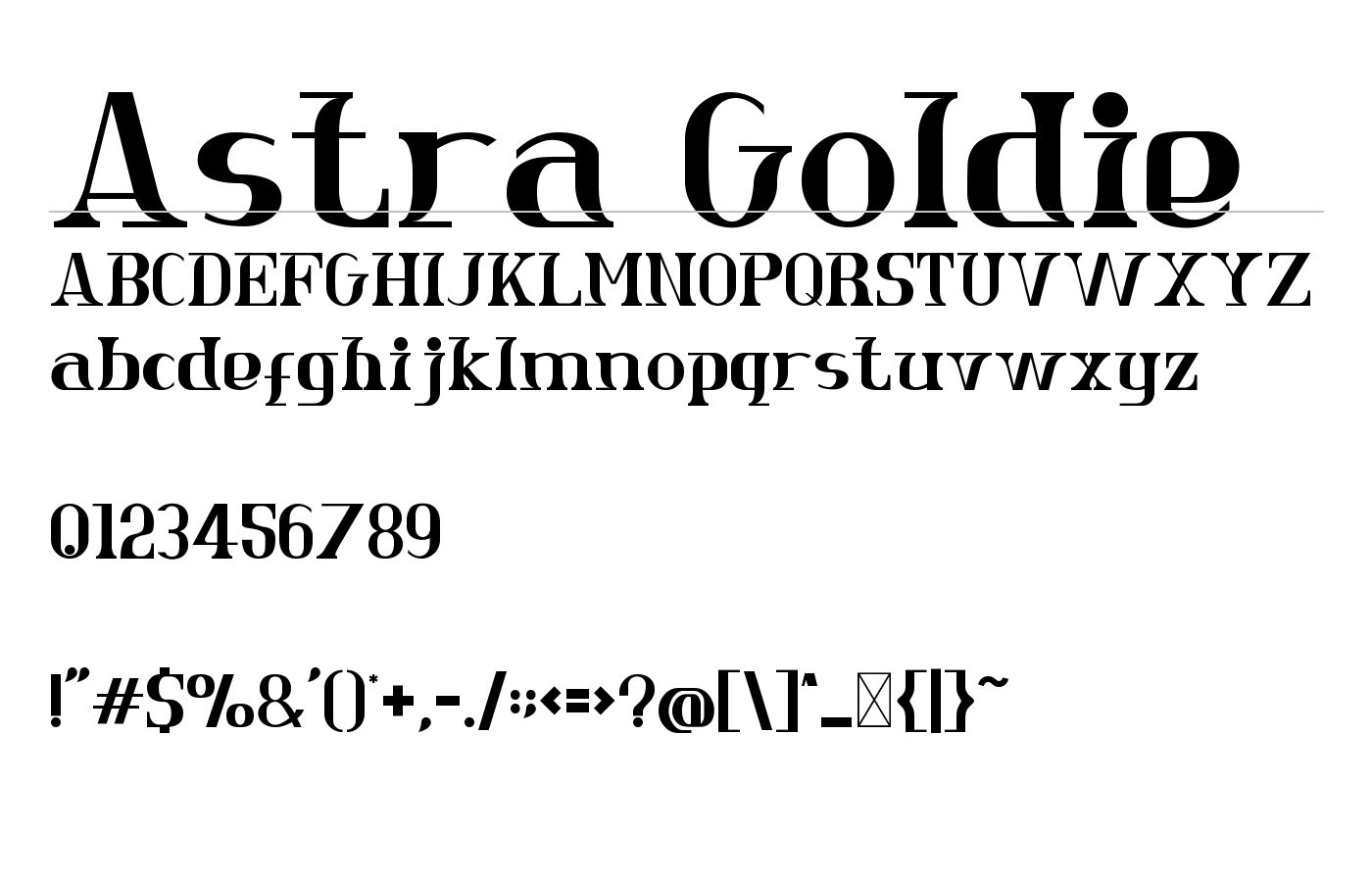
Astra Goldie is a distinctive serif font that combines high contrast strokes with elegant, angular serifs to create a sophisticated yet modern look. Featuring unique letterforms with sharp edges and a mix of traditional and contemporary details, it works beautifully for luxury branding, editorial headlines, and stylish packaging where a refined and artistic impression is desired. Its strong personality and clear readability make it ideal for designs that want to convey elegance with a touch of bold creativity.
Astra Goldie Font
About Astra Goldie Font